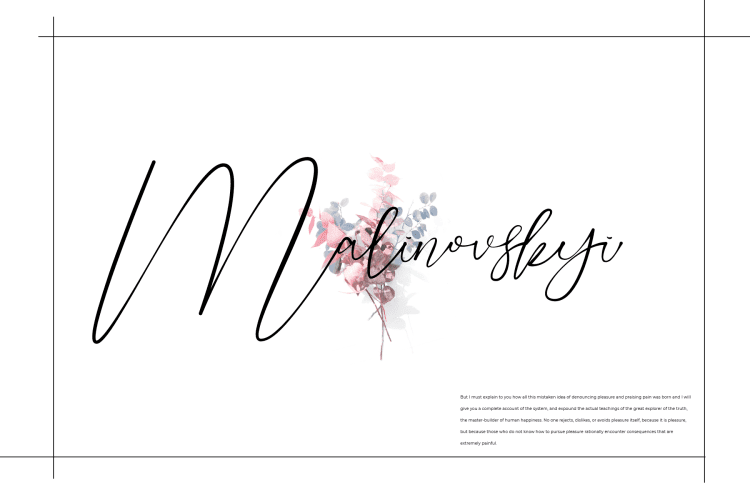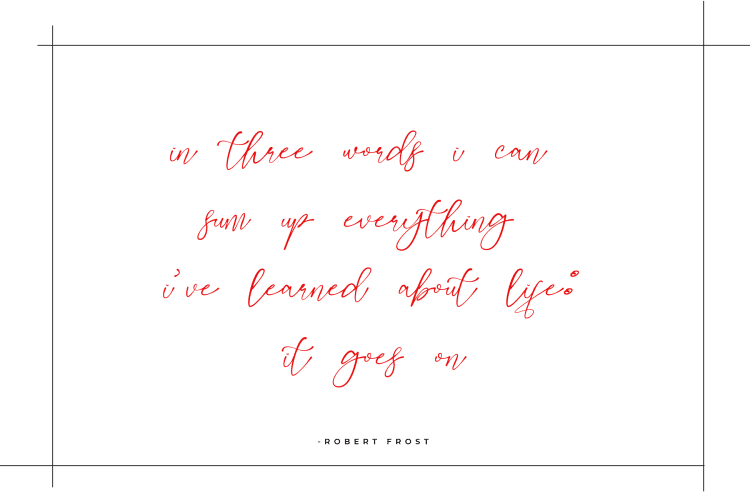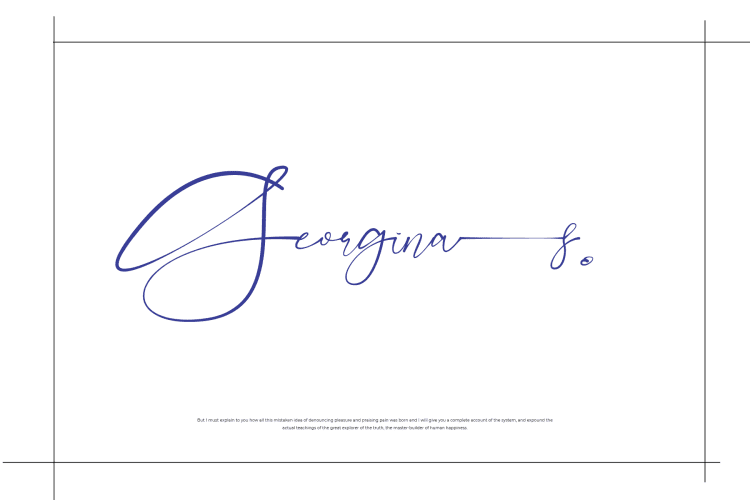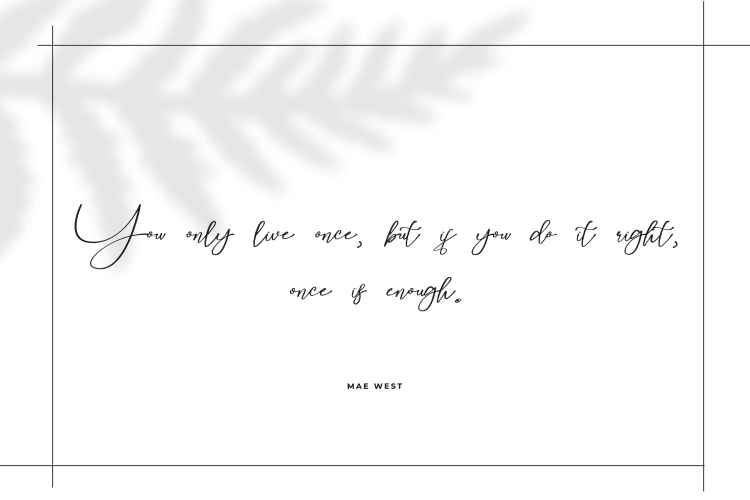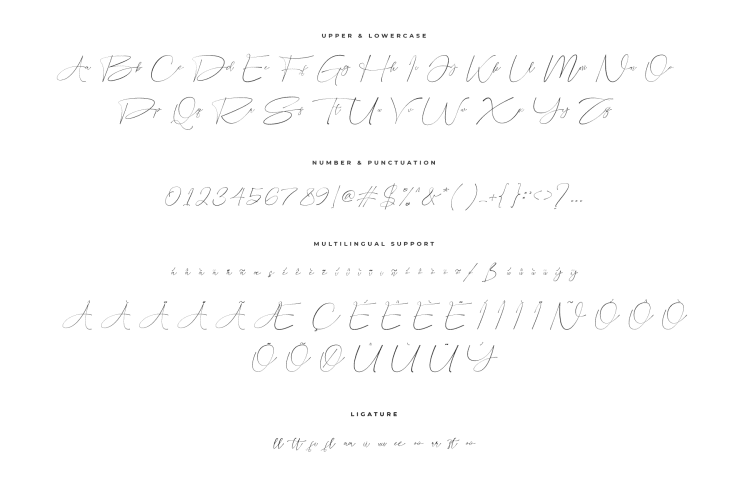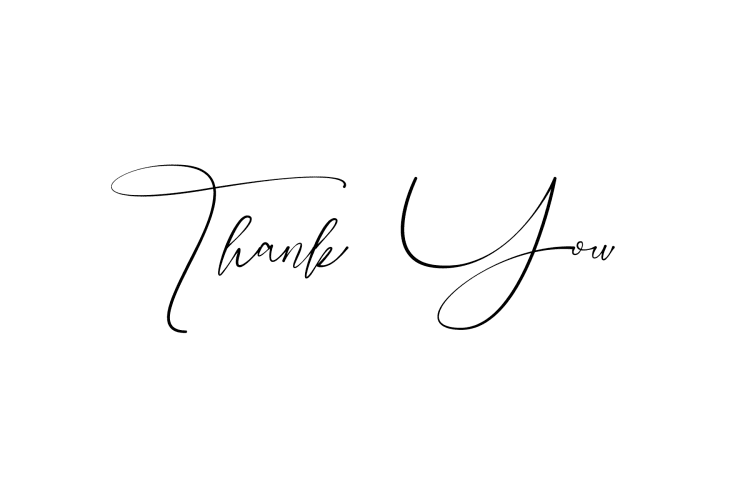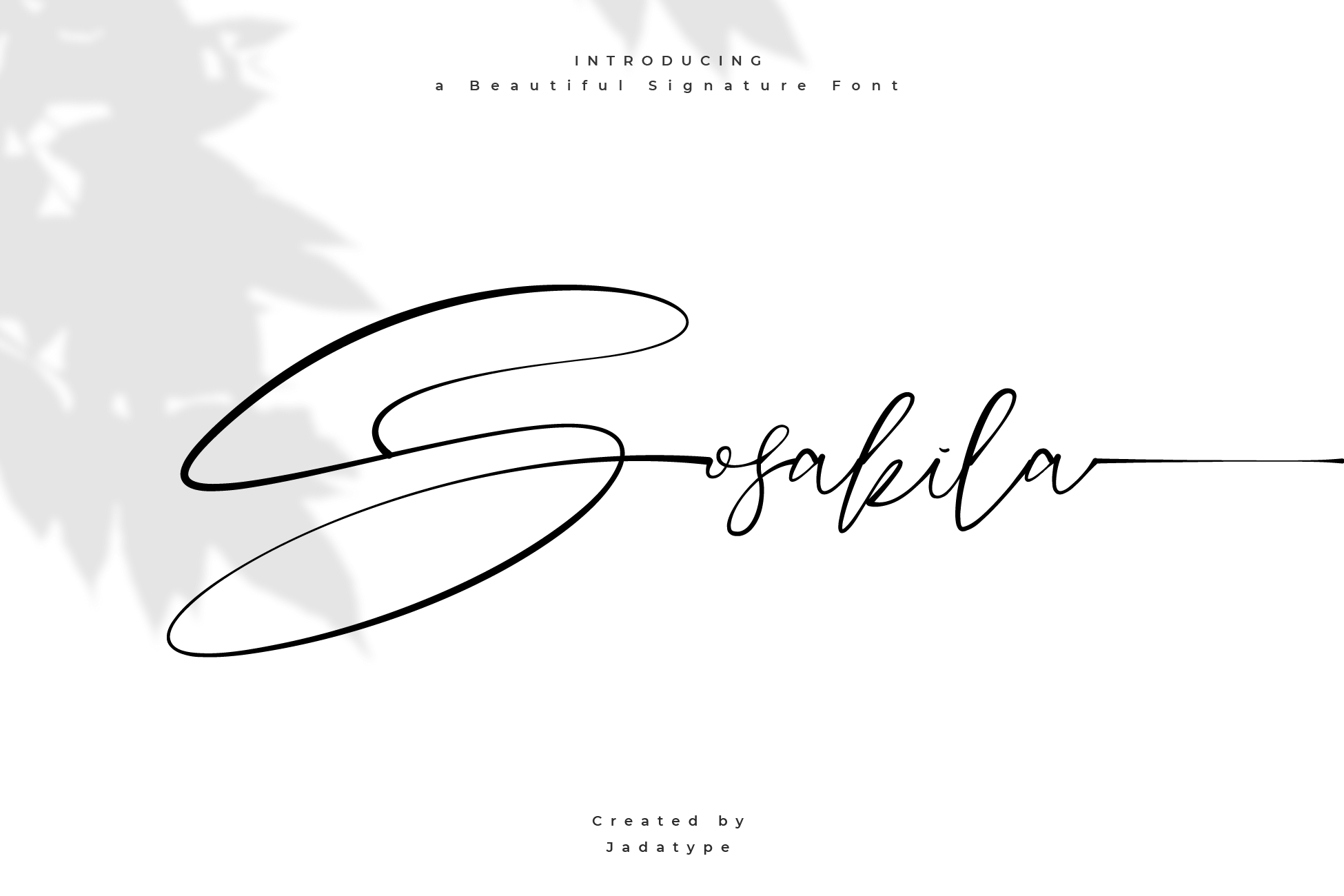
sosakila stylish signature
Sosakila
Sosakila is a stylish and delicate script font. It has a clean, thin, and smooth vibe and it will be a hit for any design that you want to add it to. This font is PUA encoded which means you can access all of the amazing glyphs and ligatures with ease!
Sosakila – Stylish Signature